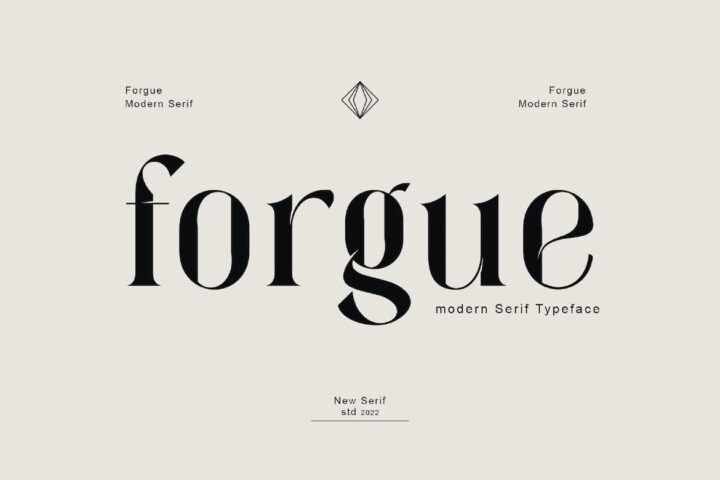
forgue serif font
Forgue Serif Font inspired by the famous minimalist logo perfect for the purposes of designing templates, brochures, videos, advertising branding, logos, invitation, layout design, elegant crafting, beauty design and more.